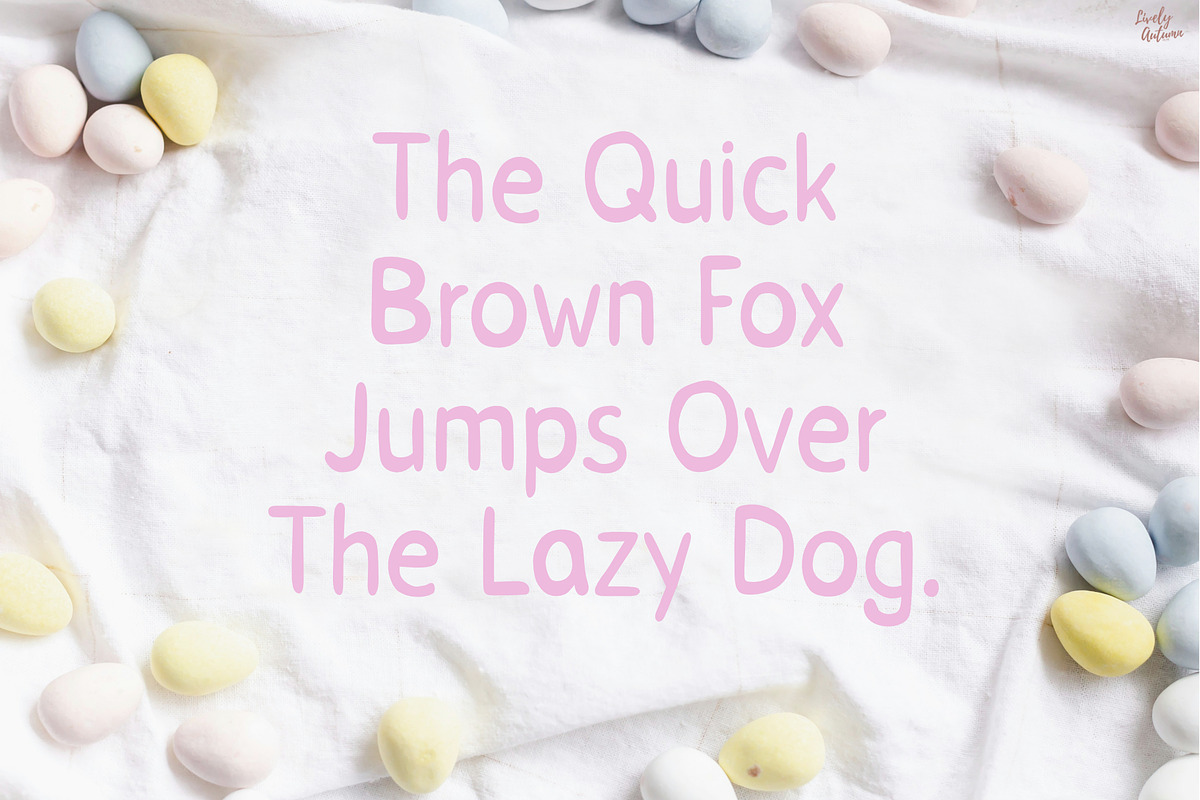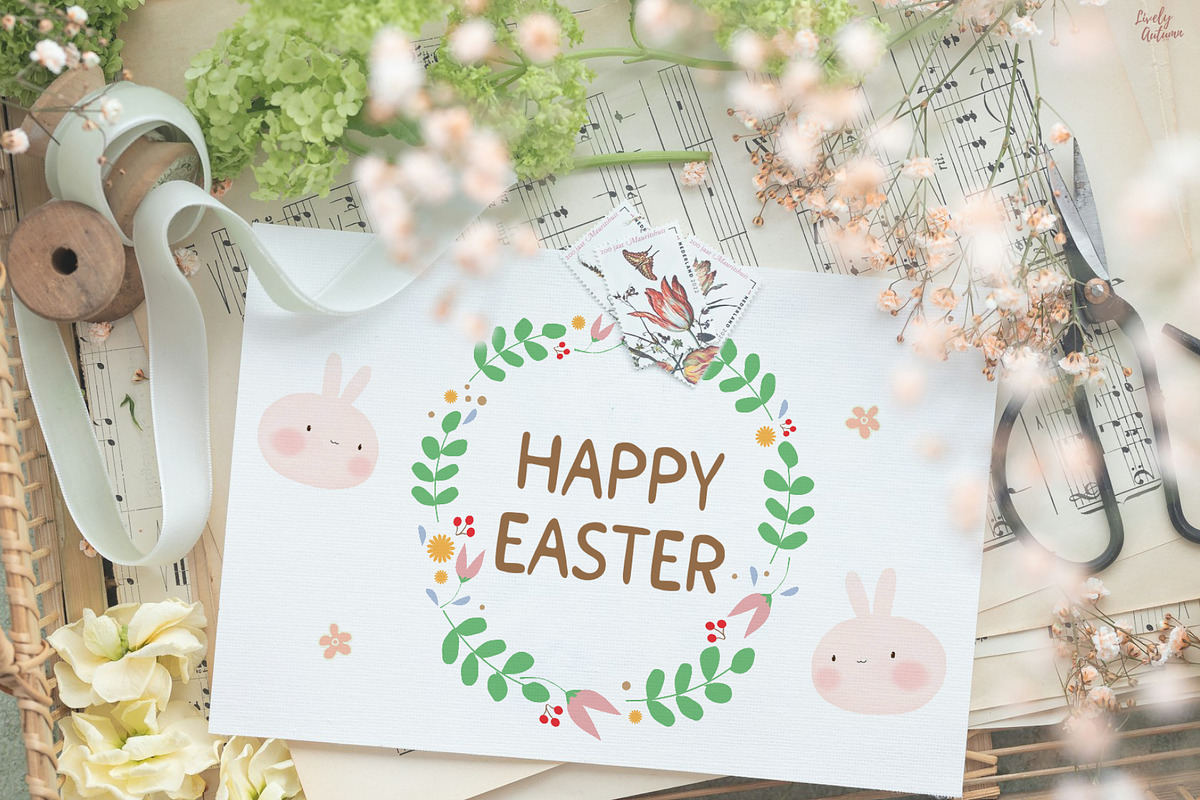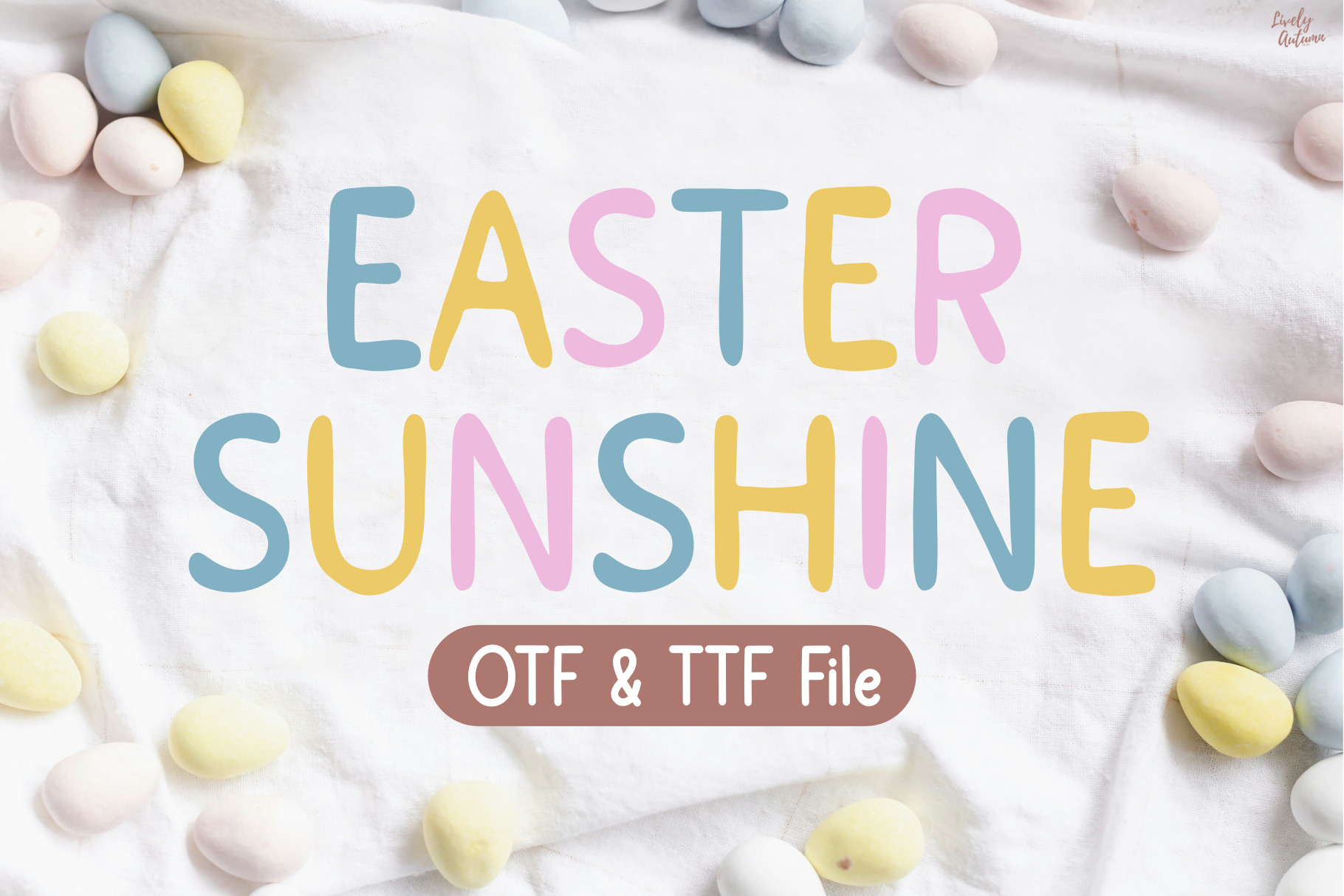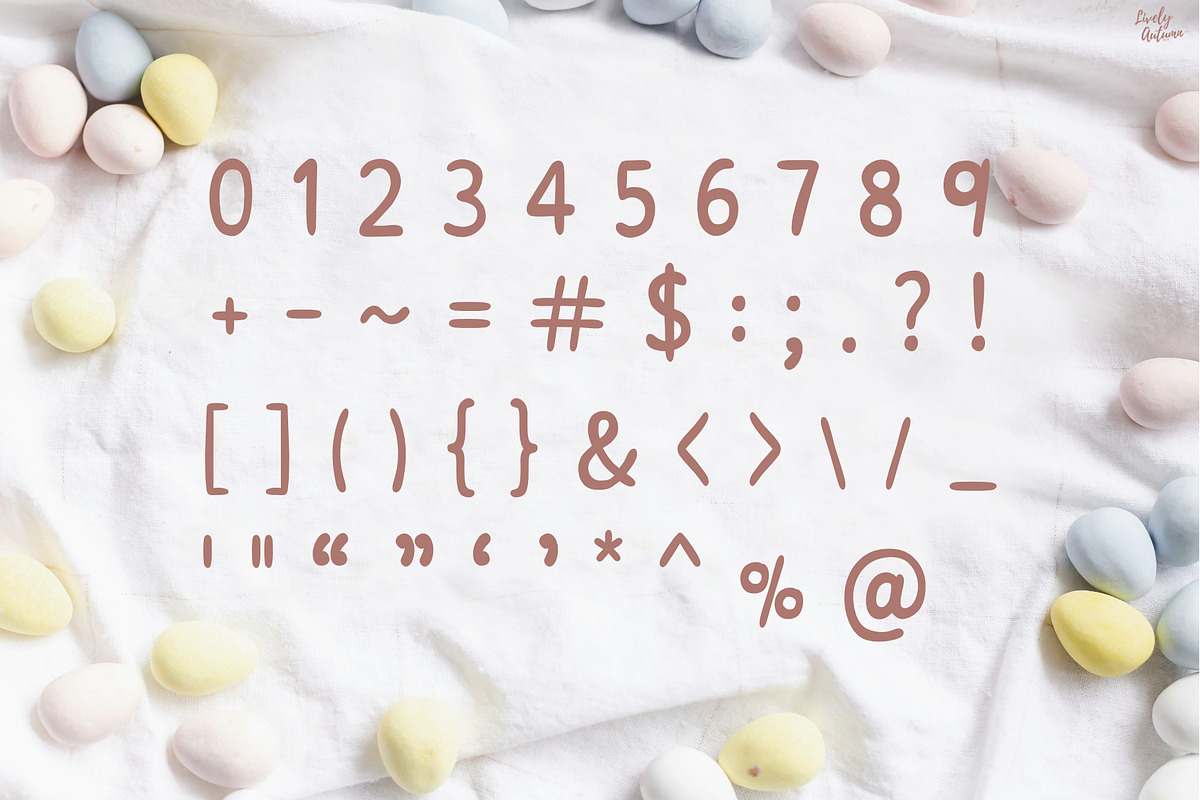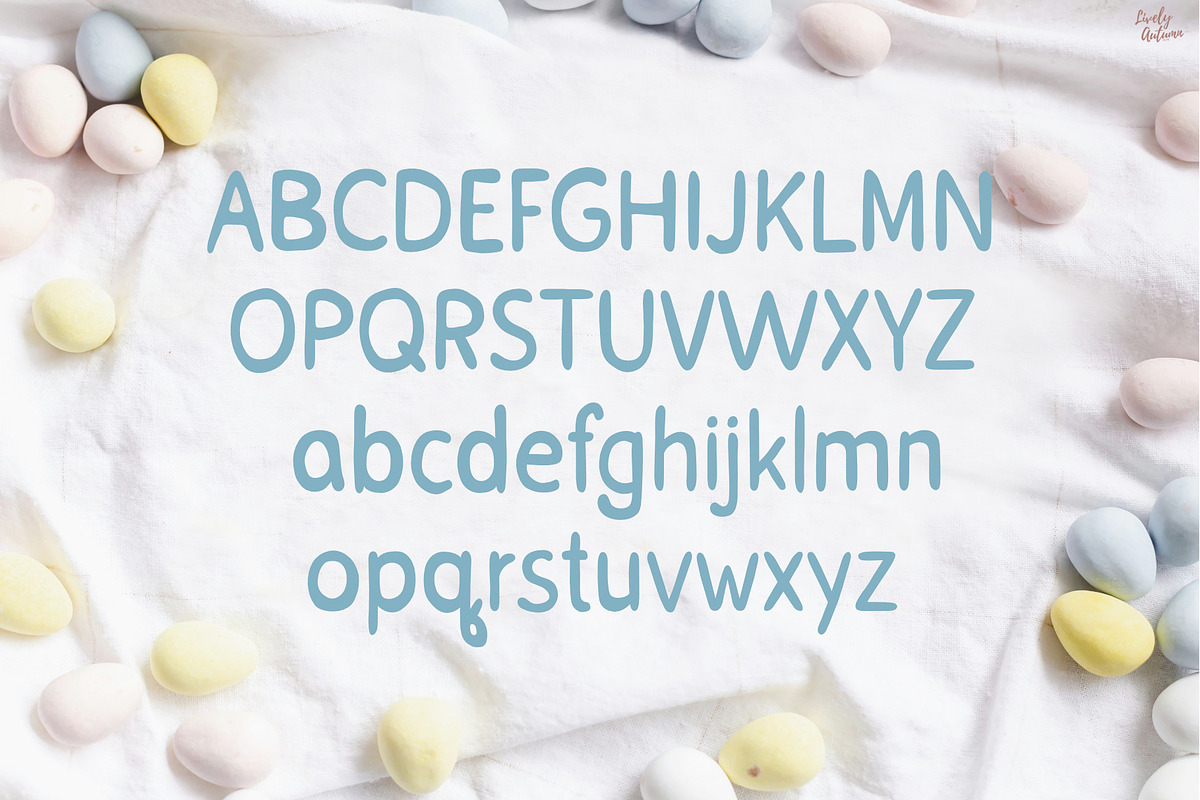
Easter Sunshine | Handwriting Font
Easter Sunshine Font is a cute handwriting font. Perfect for your personal projects and various project. From invitations to posters, social media graphics, journals, greeting cards, and much more.
- Font includes: uppercase, lowercase, numbers, and punctuation